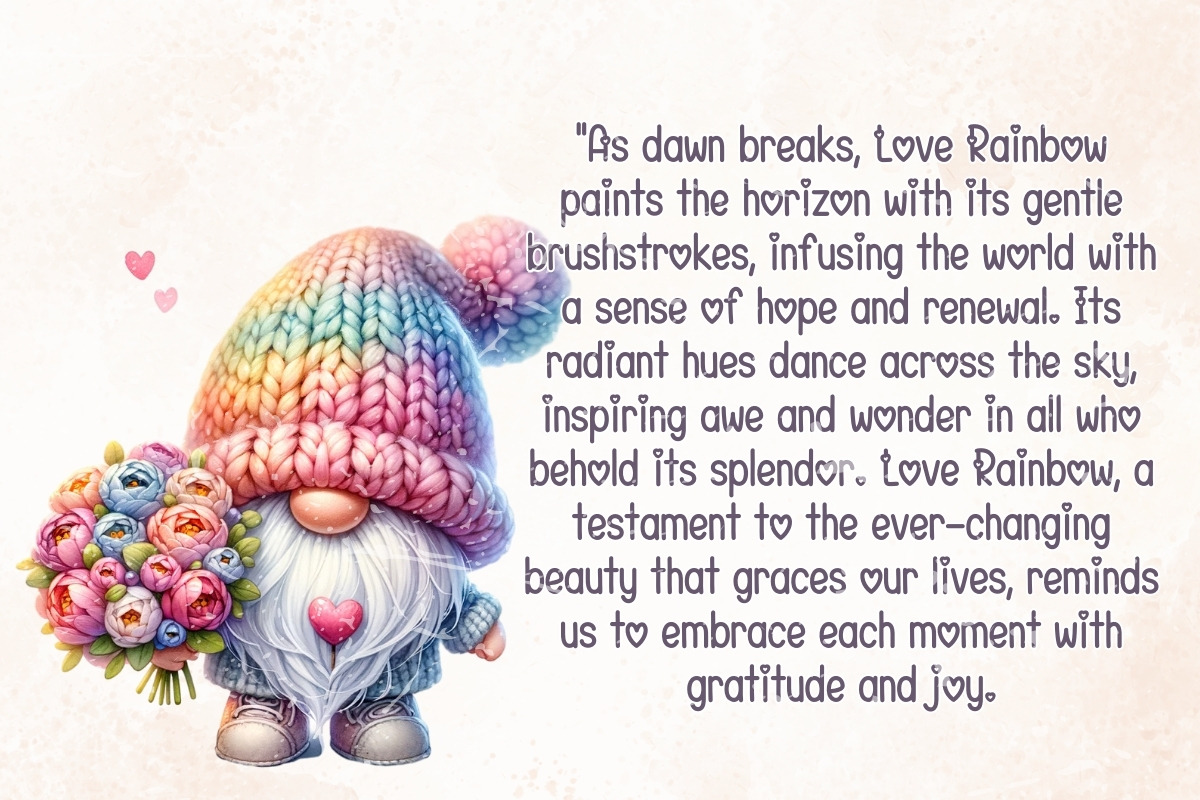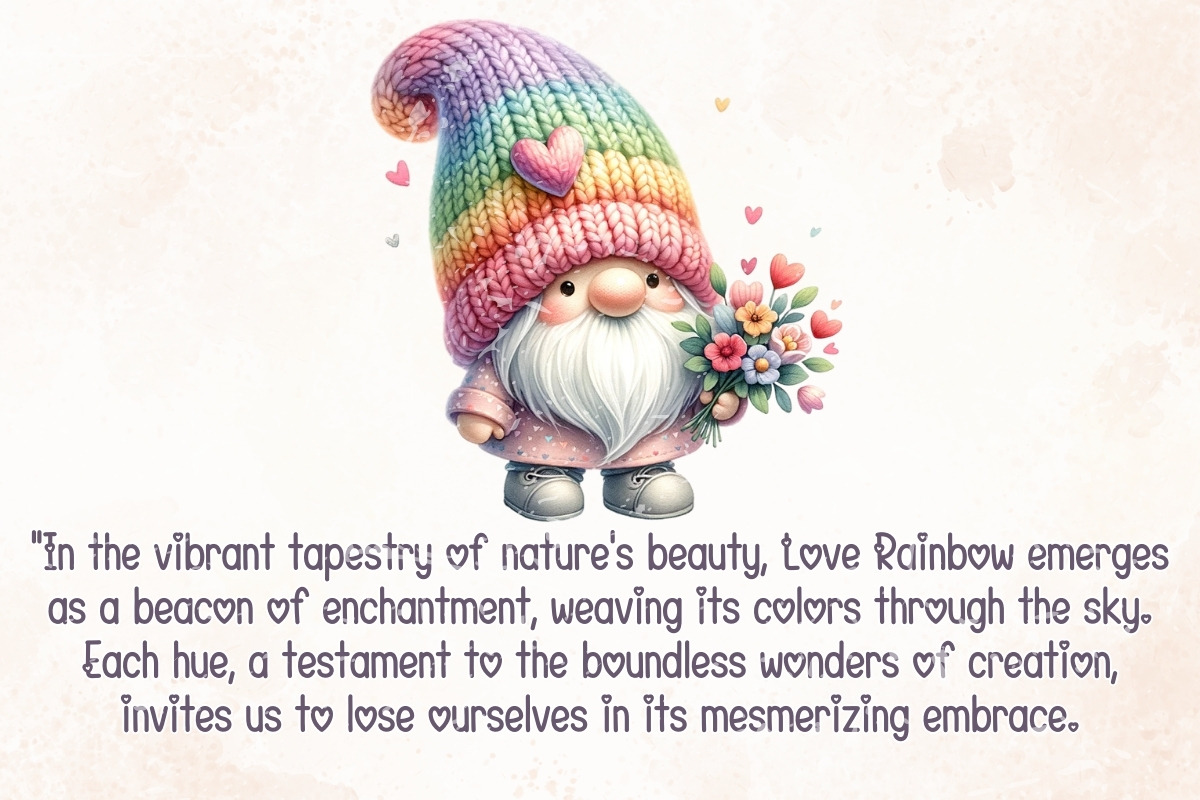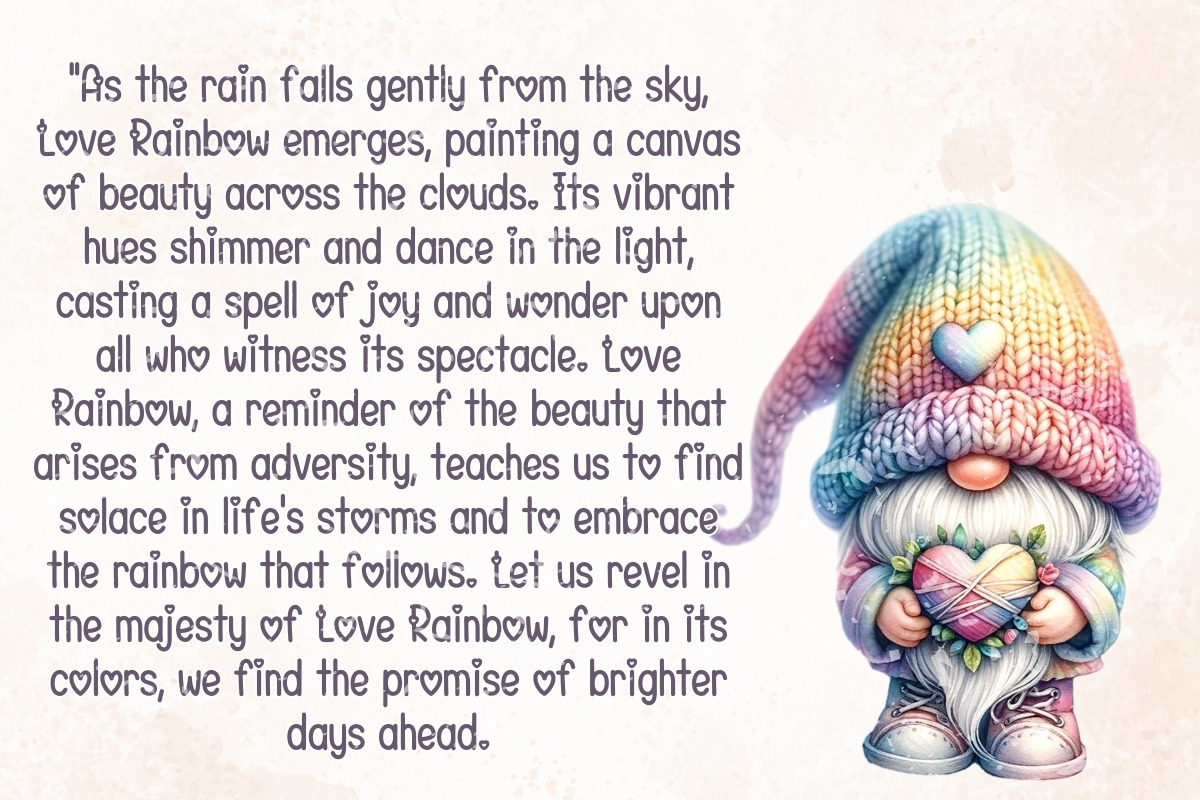
Love Rainbow - Handwriting
Introducing "Love Rainbow" - a whimsical and delightful handwritten font that adds a touch of charm to any project. With its graceful curves and playful strokes, Love Rainbow brings a sense of warmth and friendliness to your designs. Perfect for invitations, greeting cards, posters, and more, this font is sure to evoke feelings of love and happiness. Let Love Rainbow brighten up your creations with its vibrant personality and captivating style.